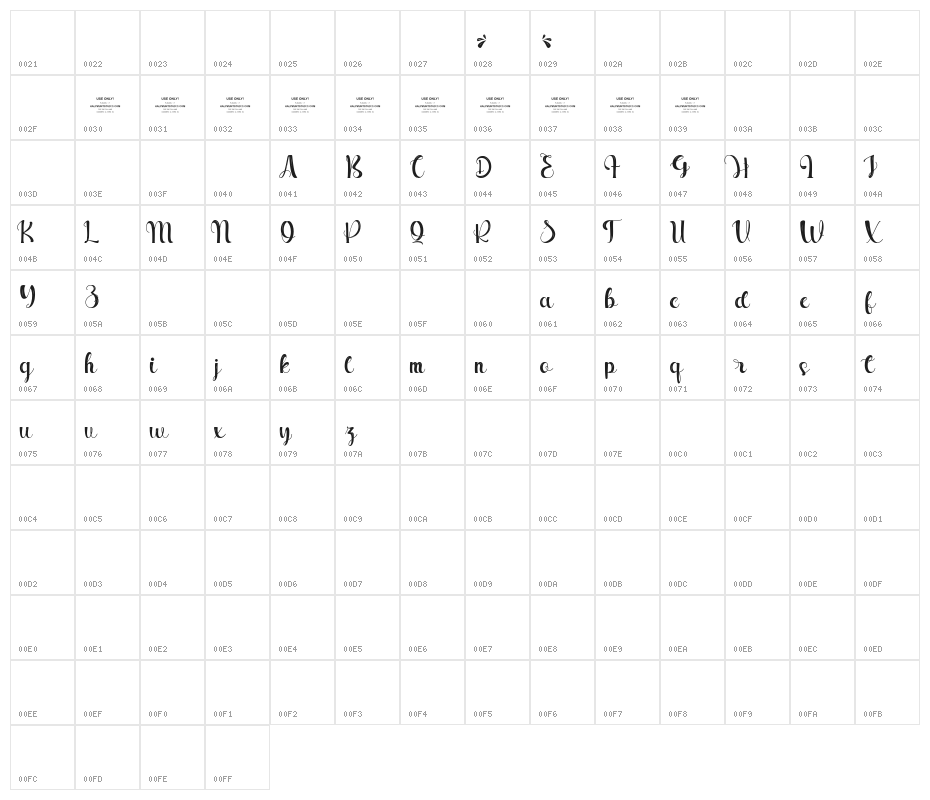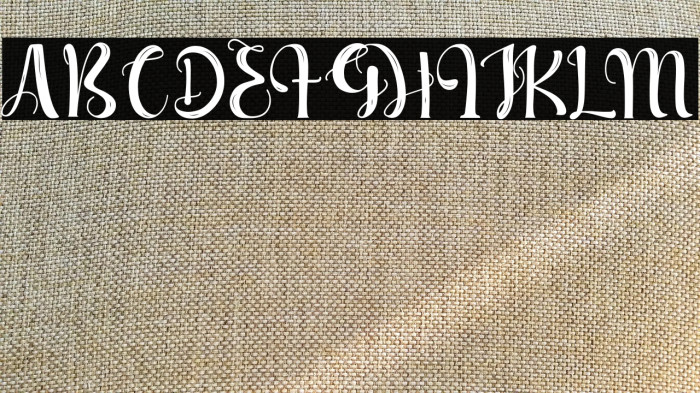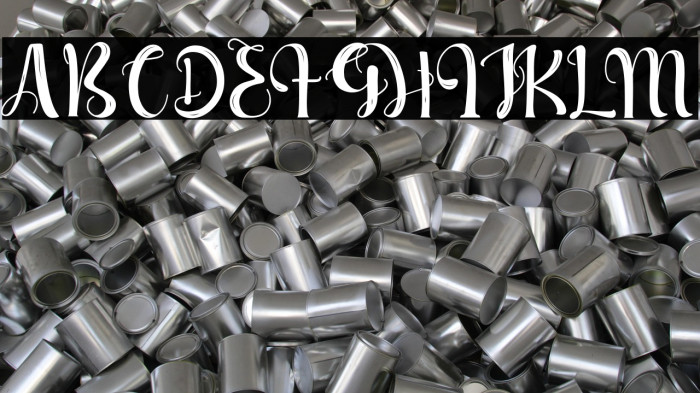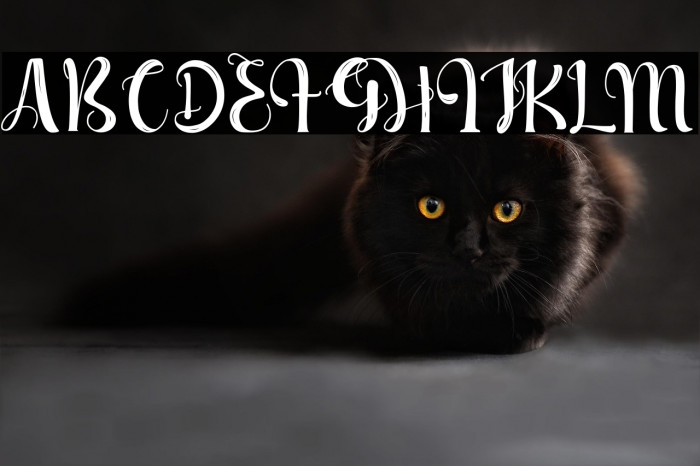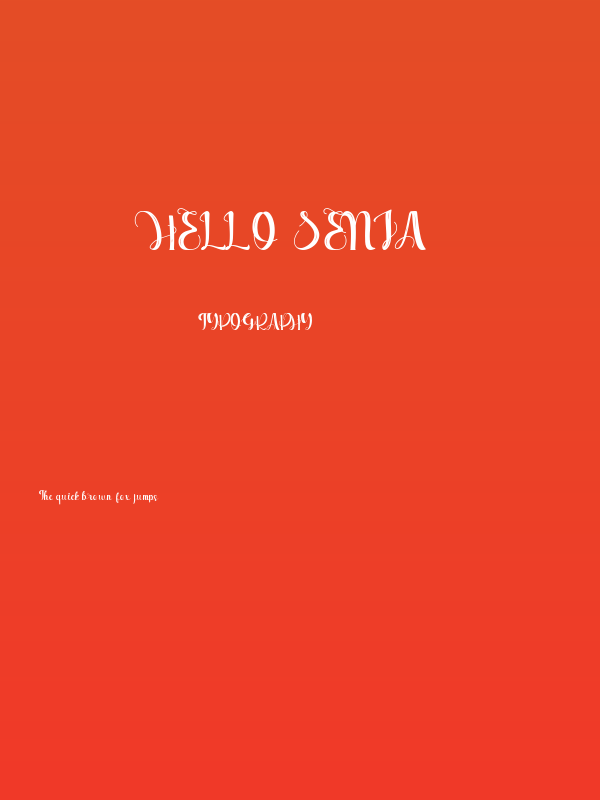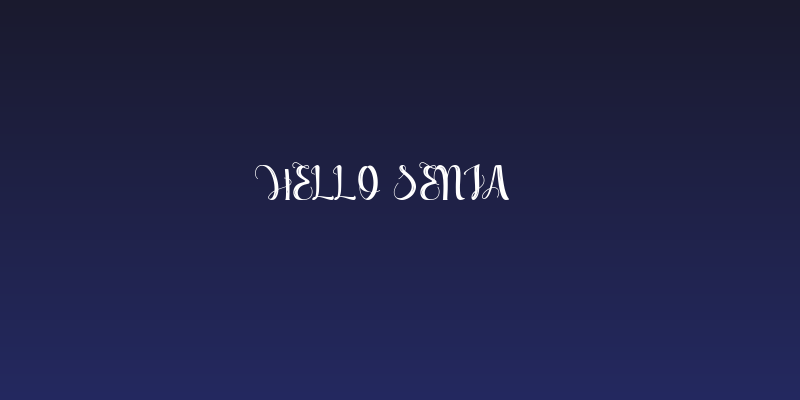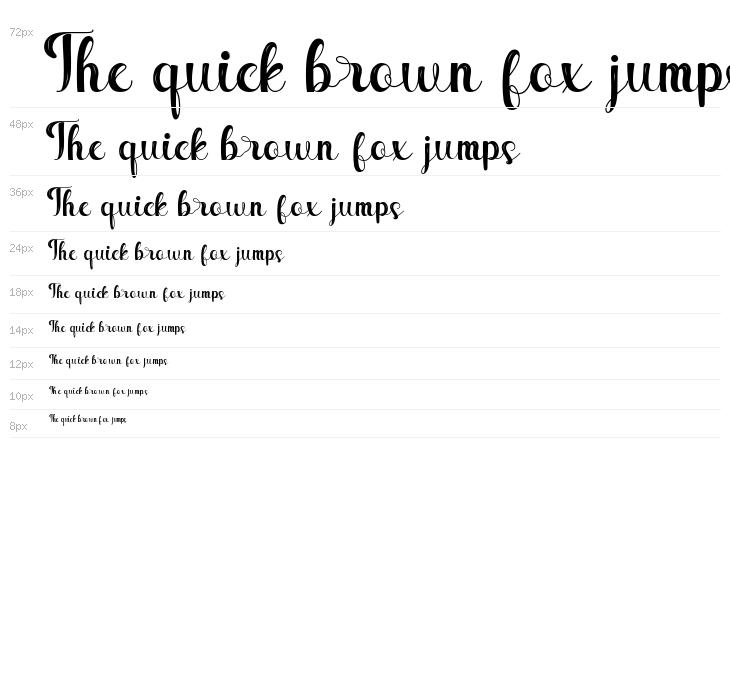
Hello Senja Font
Hello Senja Description
This font features an elegant and flowing script style with a modern twist. The uppercase letters are characterized by their tall, slender forms with intricate swashes and flourishes that add a touch of sophistication. The lowercase letters maintain a consistent flow, with smooth curves and loops that enhance readability while retaining an artistic flair. The numerals and special characters are designed to complement the overall aesthetic, ensuring a cohesive look across all text. This font's unique style makes it suitable for a variety of creative applications.
| Use Case | Logos, Invitations, Decorative Headings |
| Proposed Projects | Ideal for wedding invitations, branding projects, elegant logos, and decorative headings. |